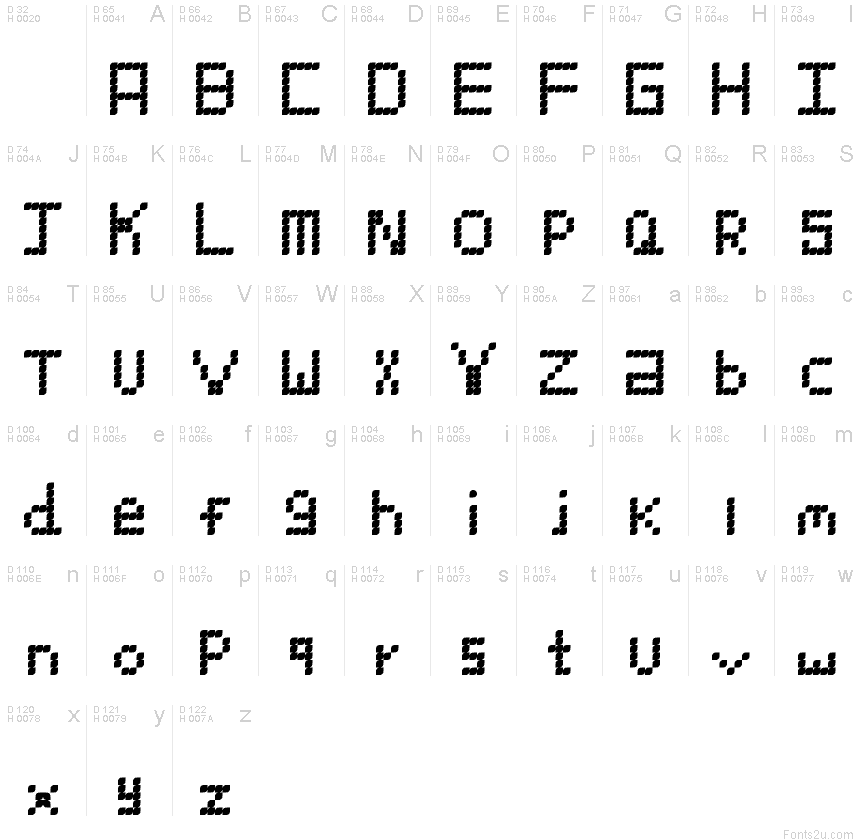
Block Simple, created by Abcalan1 of FontStruct, is a free pixel font built from compact, rounded tiles. Its segmented strokes alternate between square corners and clipped curves, giving the lettering a crisp digital pattern with a playful arcade-era edge.
Themes of retro computing and electronic games make it a convincing fit for game graphics, music merchandise, and tech event posters. In editorial design, the tiled letterforms can turn section openers and feature headings into interface-like graphics rather than neutral type.